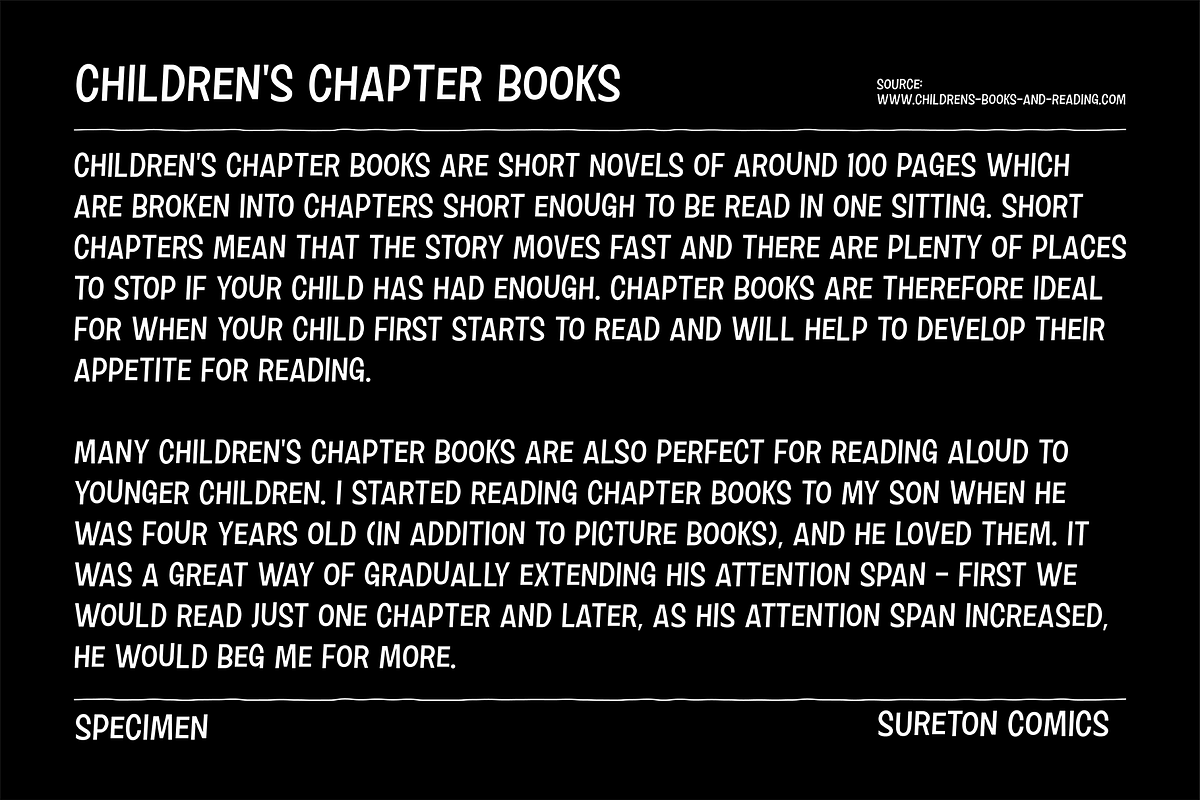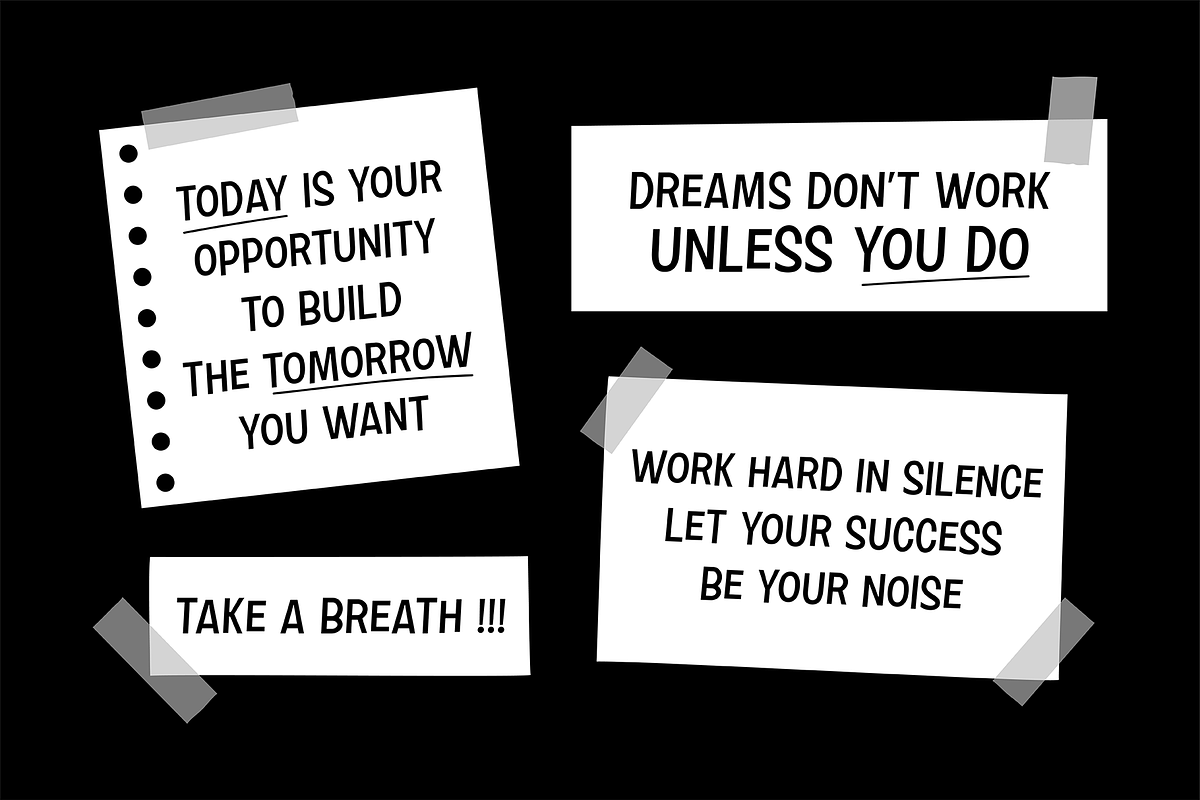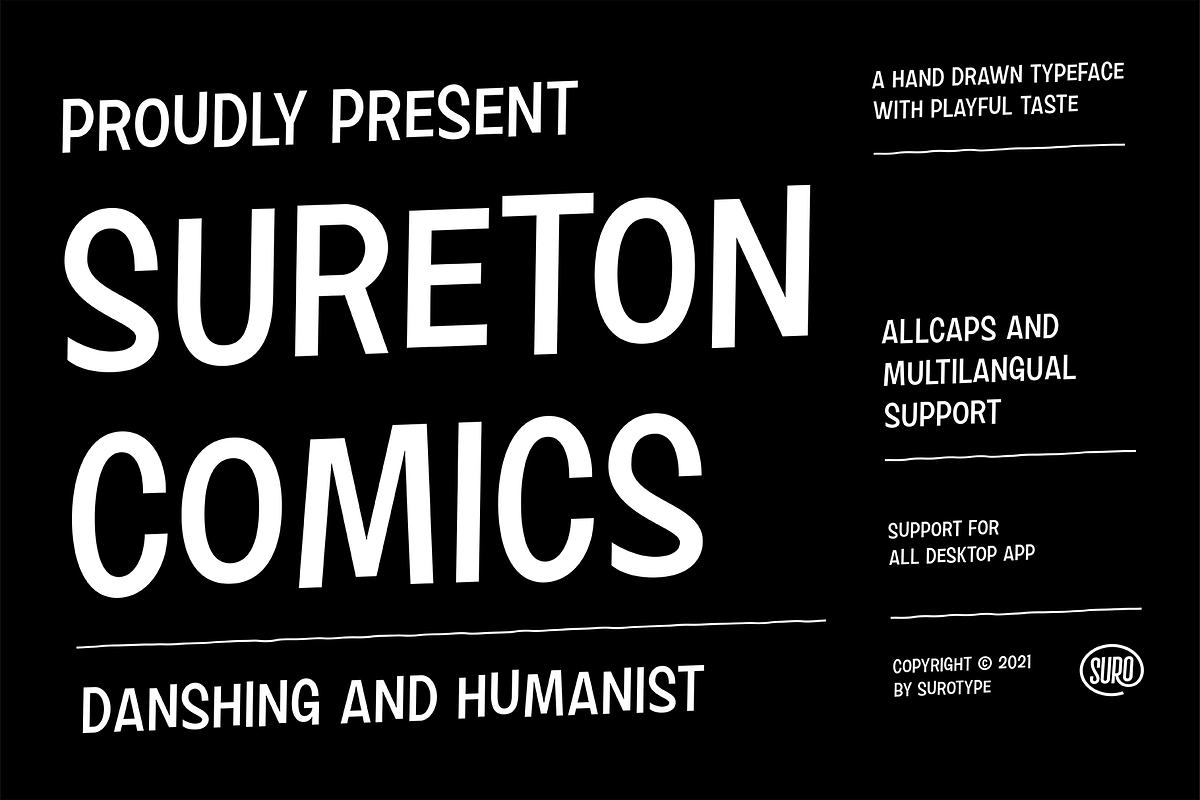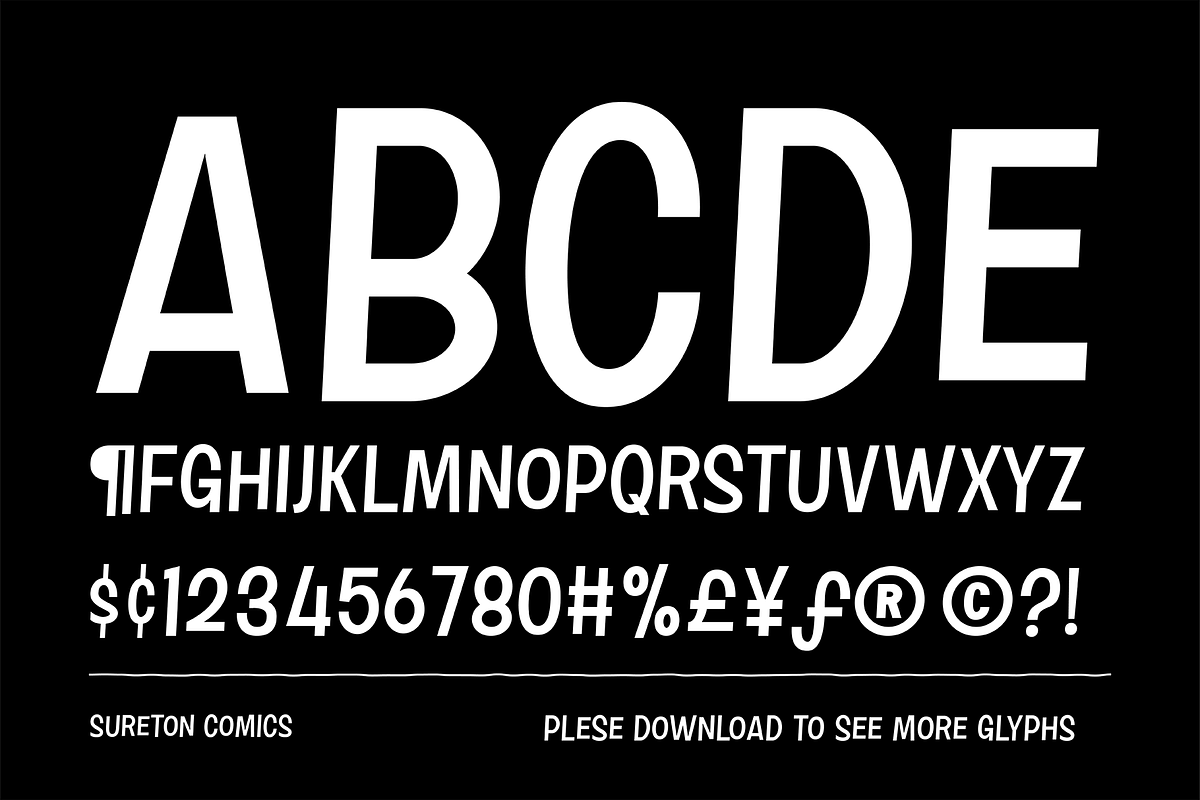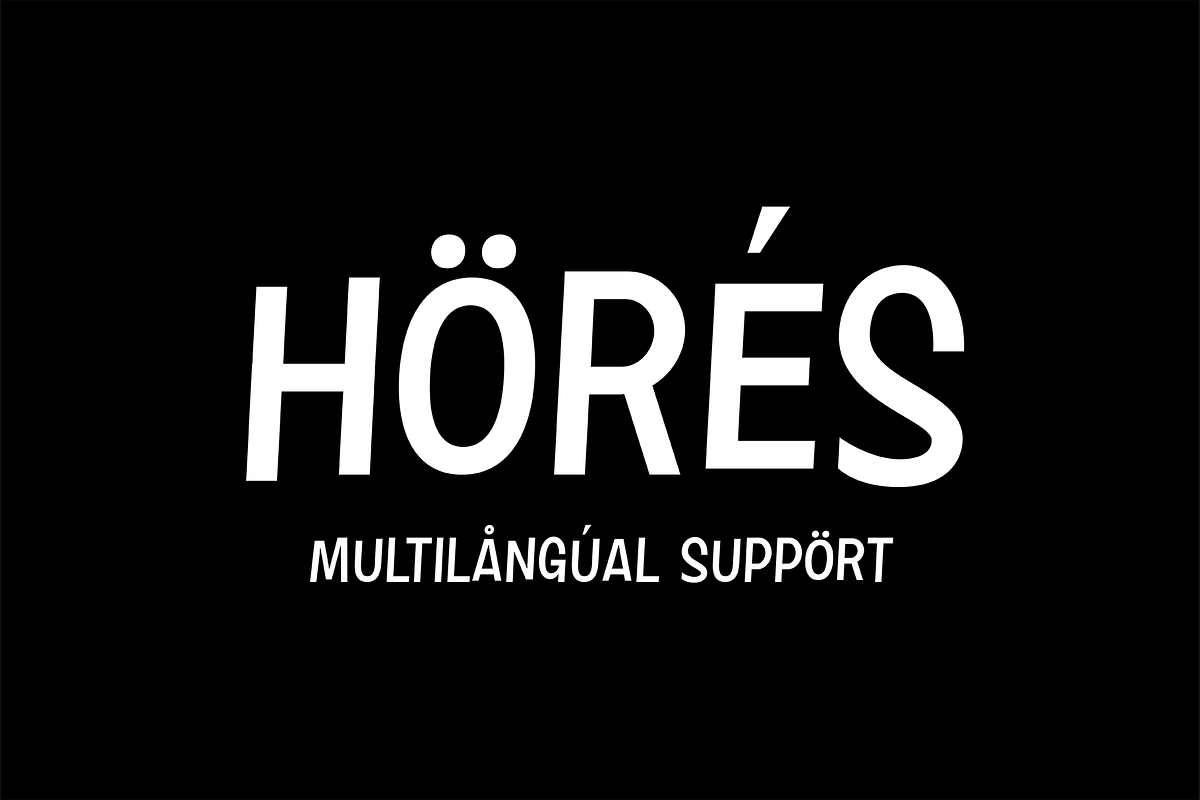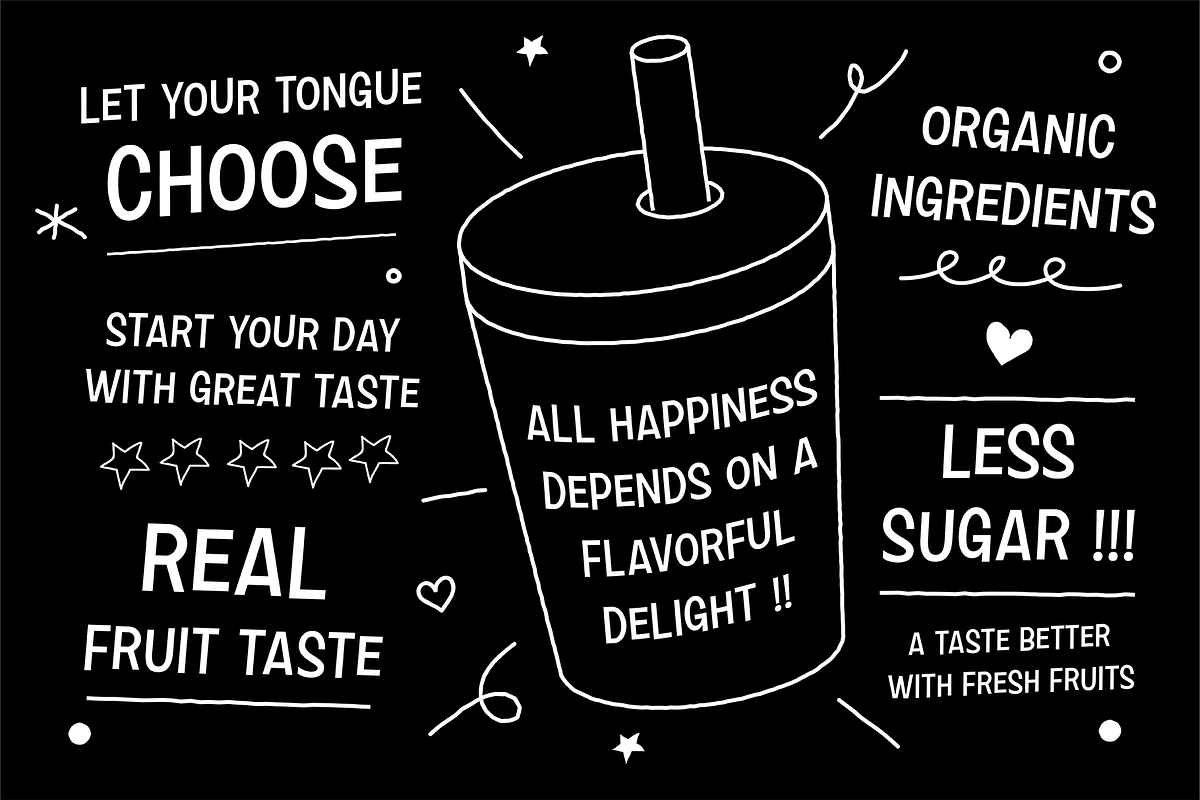
Sureton Comics
Sureton Comics a hand drawn typeface. Sureton Comics very suitable to use for headlines, wall signage, branding, movie title, prints, logotype, or anything else.